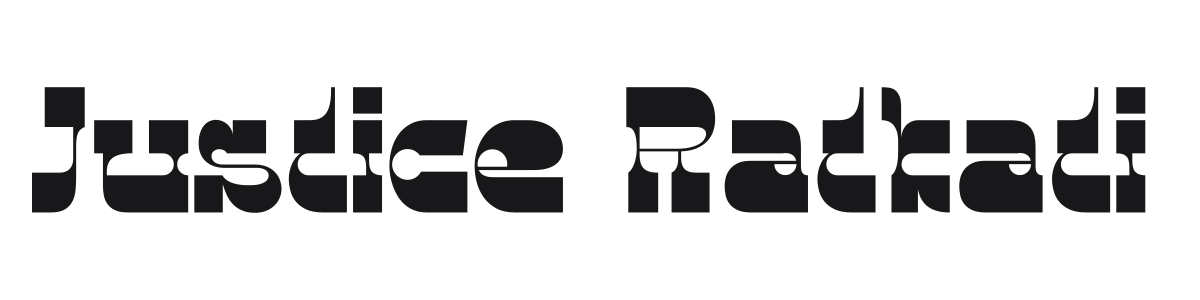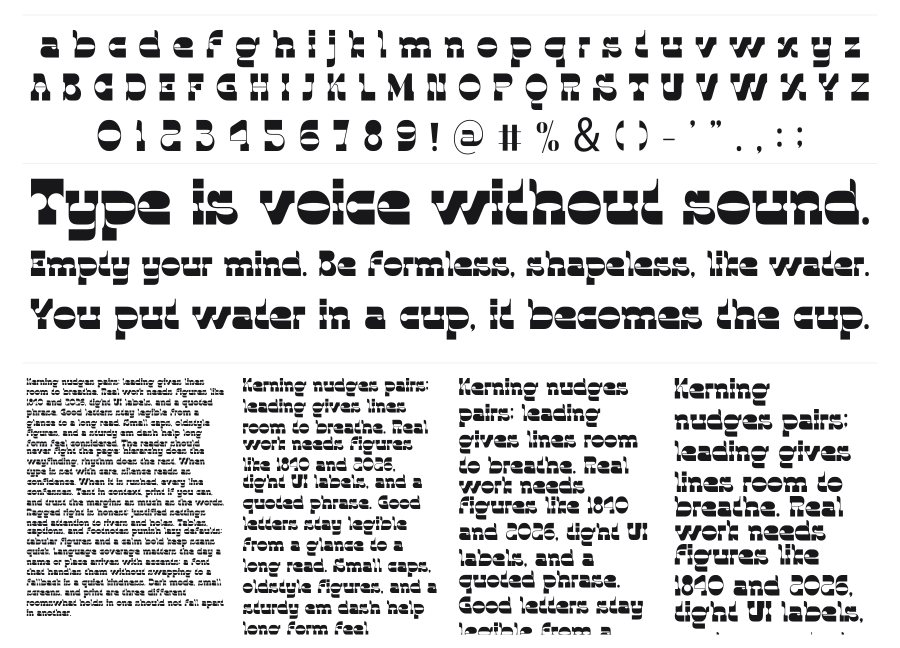
Justice Ratkati
Justice Ratkati is an ultra-heavy display font with deep concave cutouts and rounded forms pulled straight from 1970s groovy typography. The thick strokes are interrupted by large circular and curved voids that give each character a bold, punched-out silhouette. It works loudly at large sizes, carrying the energy of psychedelic poster art and retro branding.